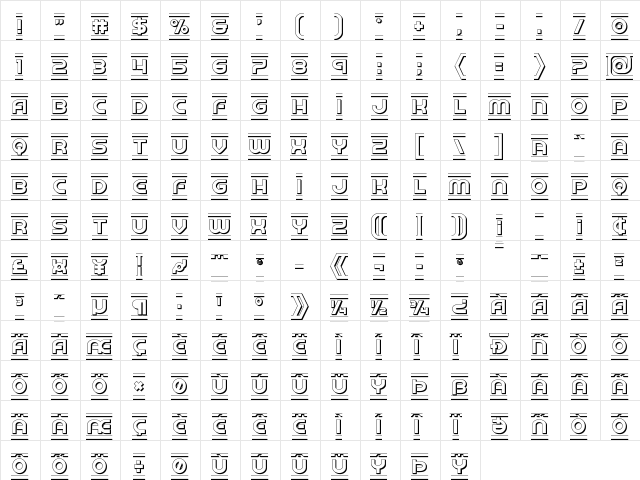
Barcade 3D Regular
Design Context for Barcade 3D Typeface
Barcade 3D is a composed and adaptable typeface that performs quietly and consistently across a wide range of design contexts.